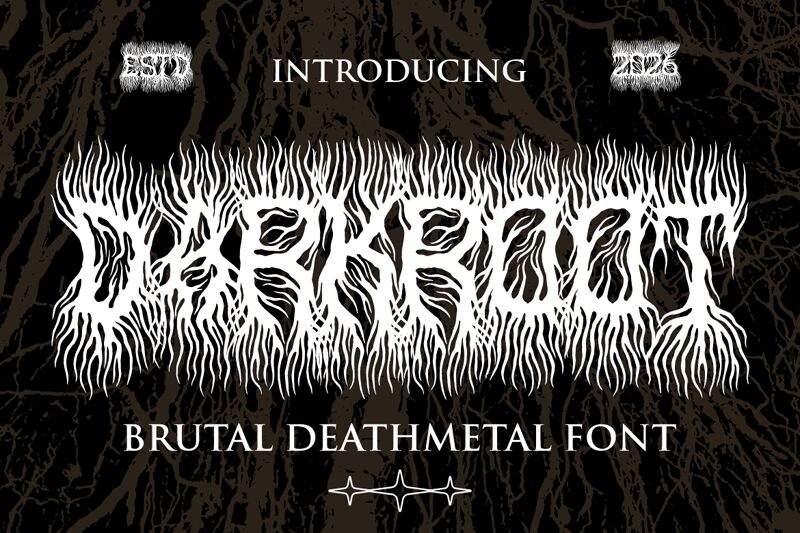
Dark Root font family by PutraCetol Studio is a free gothic font family featuring aggressive, chaotic, and intense textures. Text appears organic and fragmented, giving the font a dynamic and edgy visual impact. Its bold, dark, and expressive design is great for audiences looking for raw and gritty aesthetics. The font family contains 2 font styles.
Dark Root can be used to depict either visual horror or a sense of depth and intensity with its letters. In addition to horror movie posters, the font family suits music album art, band names, Halloween design, branding, t-shirts, and fashion.